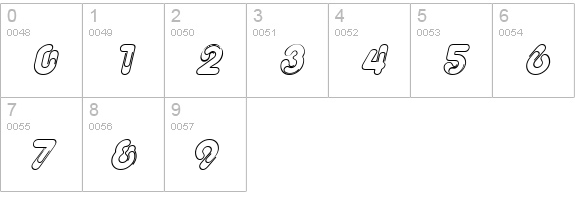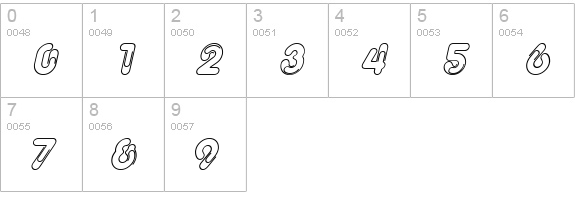
PageClips Italic Font Details
PageClips Italic is a distinctive, italic variant in the PageClips typeface family \xE2\x80\x94 well suited to design and typography projects.
PageClips Italic is a stunningly elegant font that adds a touch of sophistication to any project. With its delicate curves and graceful strokes, this font exudes a sense of refinement and style. Its italic design creates a sense of movement and fluidity, making it perfect for conveying a sense of dynamism and energy. Whether you are designing a logo, creating a website, or working on a print project, PageClips Italic will elevate your work to new heights. Its unique and distinctive look will captivate your audience, leaving a lasting impression. The best part? PageClips Italic is free! Yes, you read that right. This incredible font is freely available to download at FontsMarket.com. You can now enjoy the beauty and versatility of PageClips Italic without any cost. So why wait? Enhance your designs with the timeless allure of PageClips Italic. Download it for free today at FontsMarket.com and let your creativity soar.